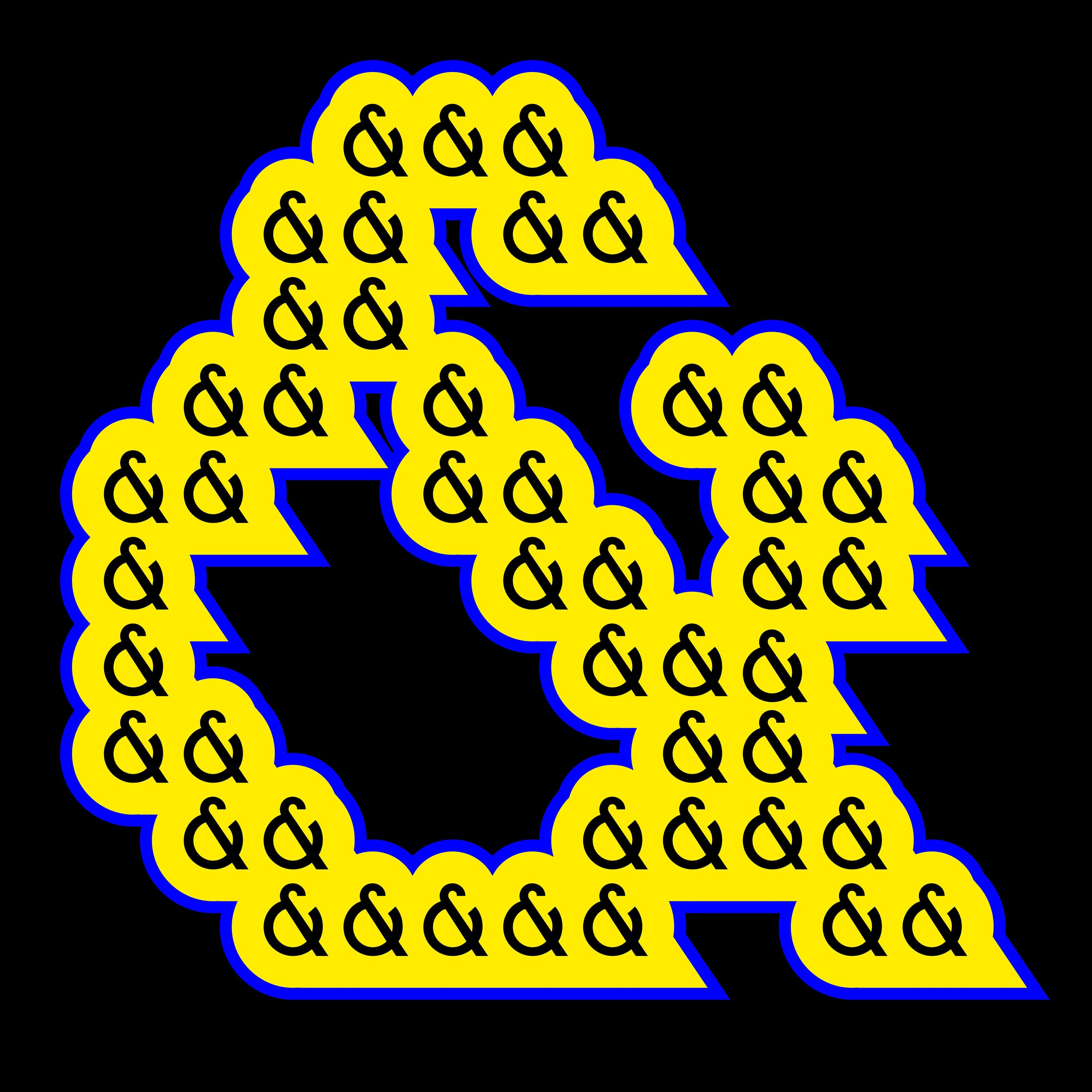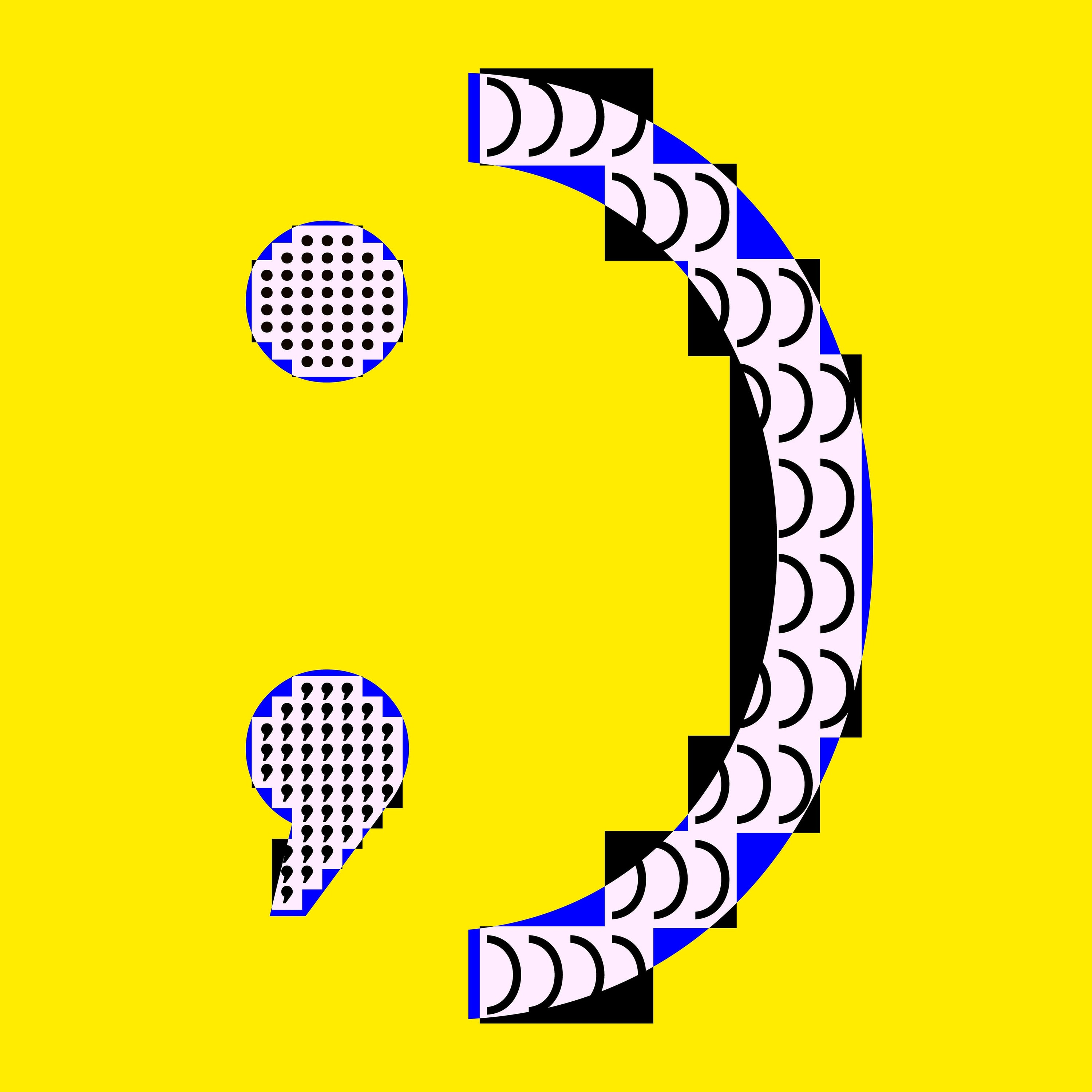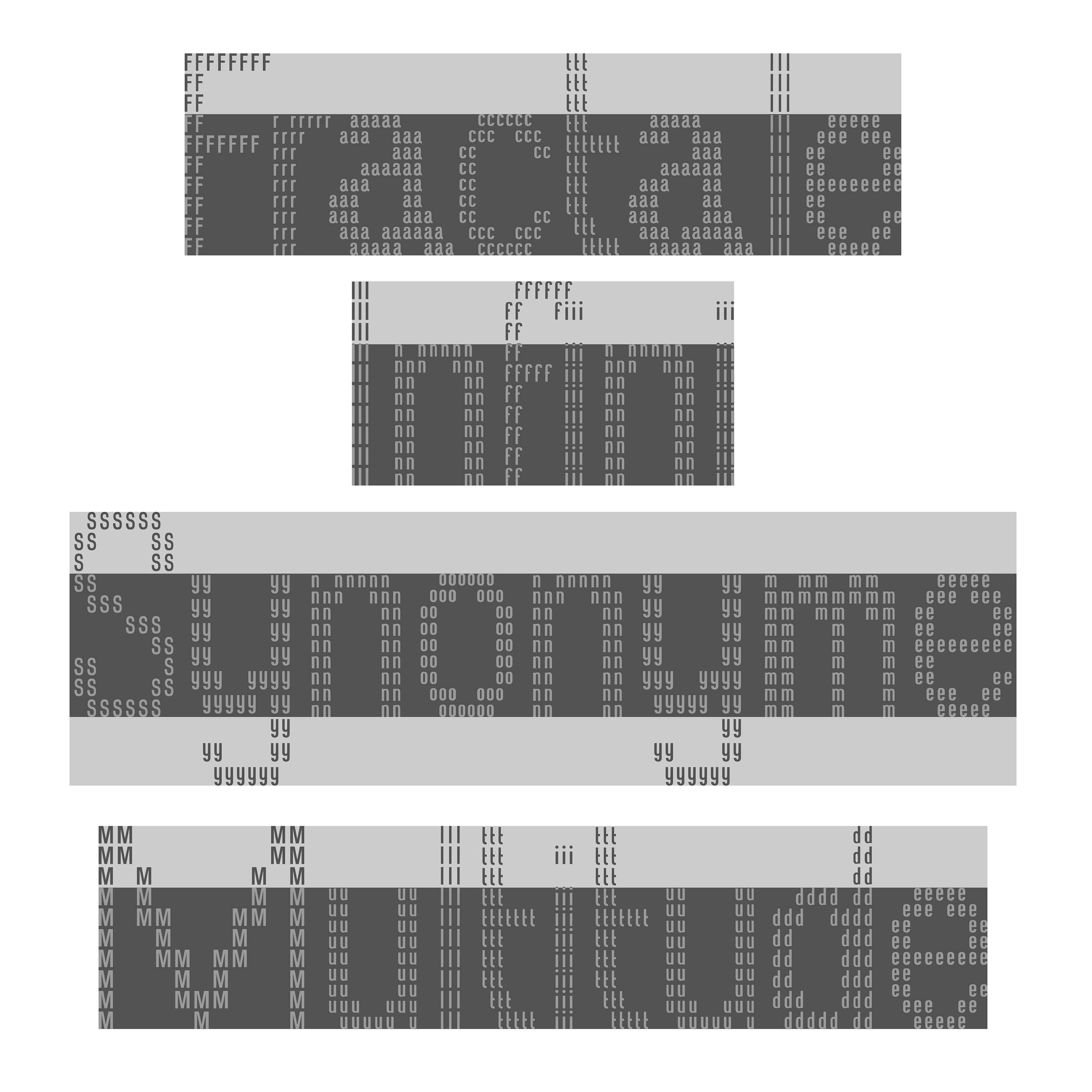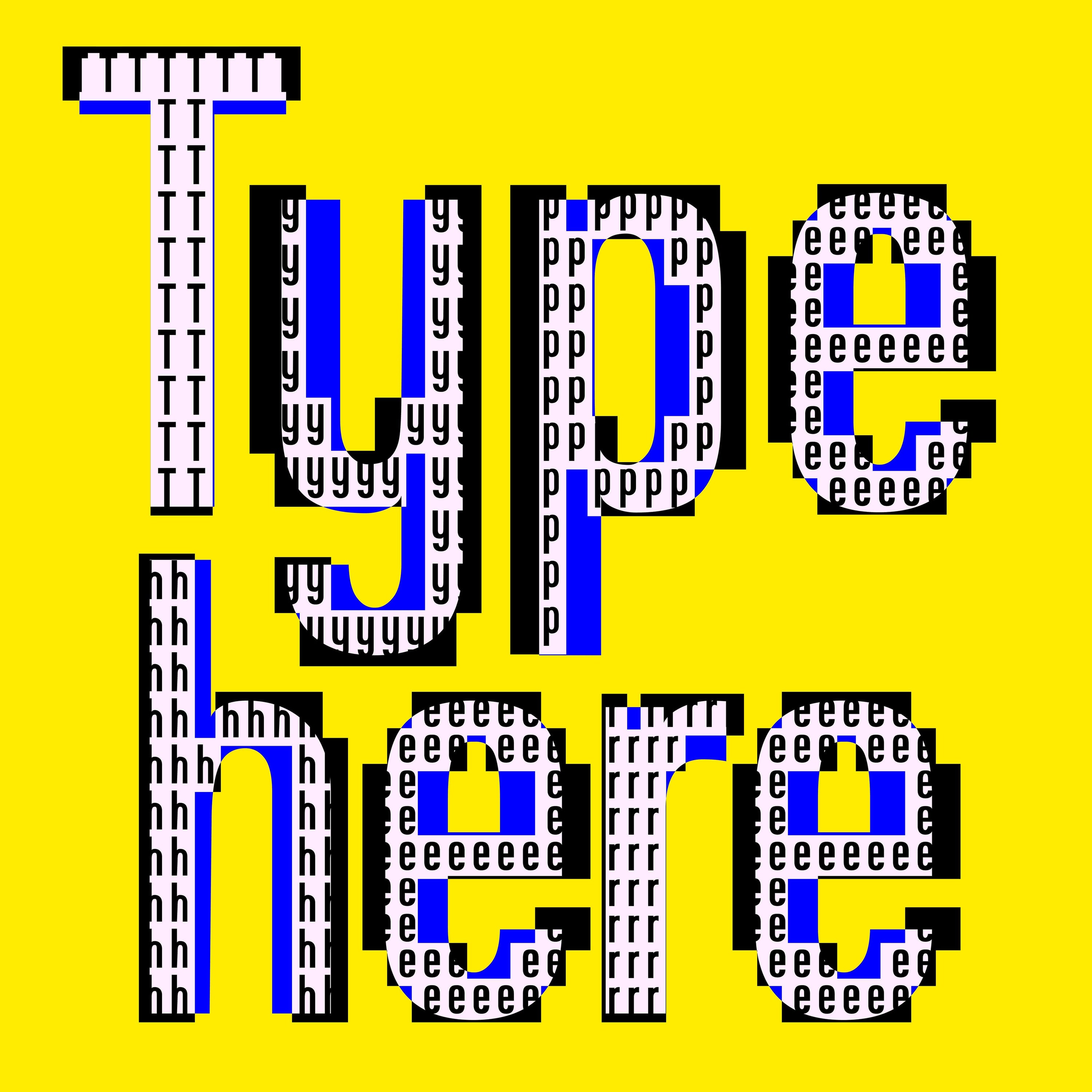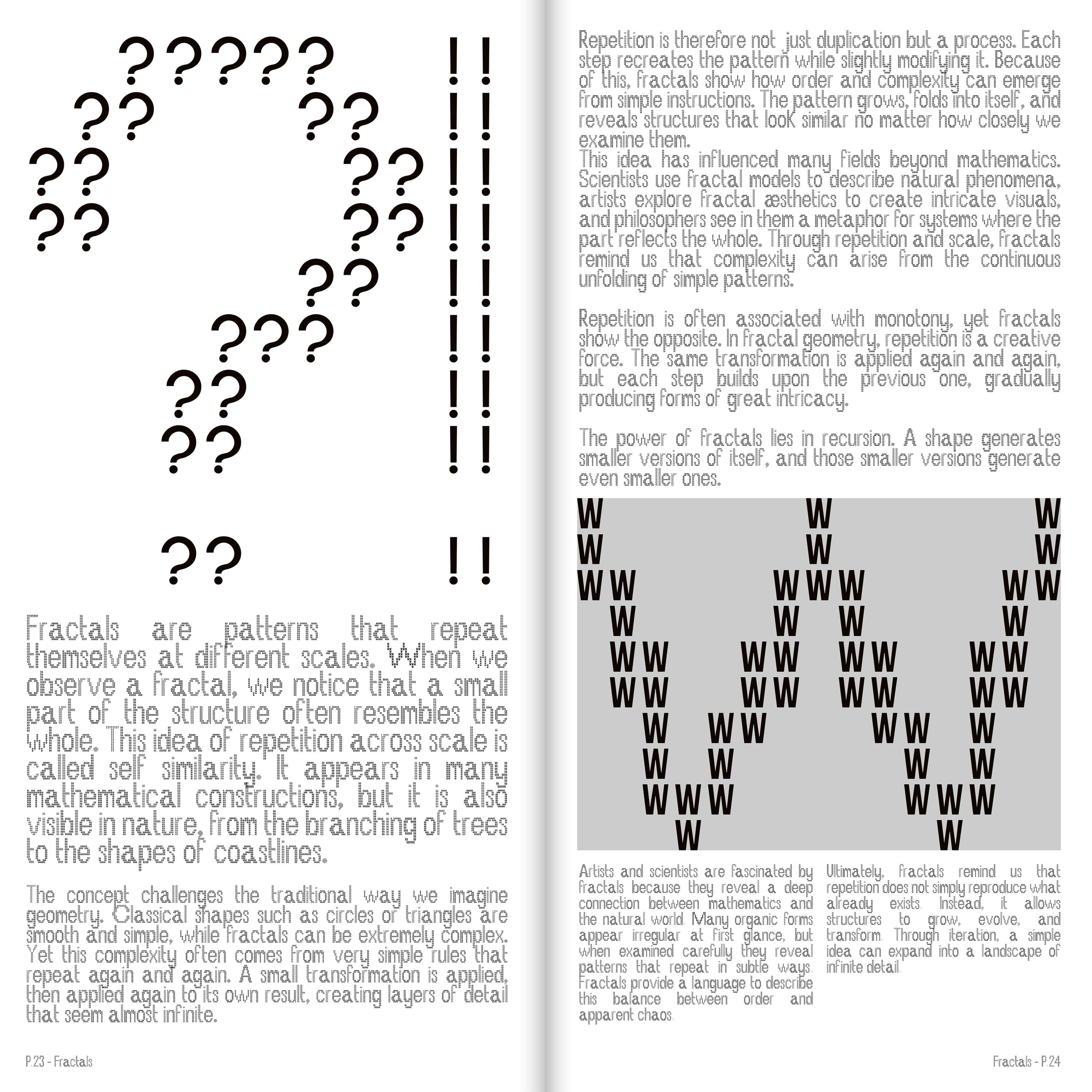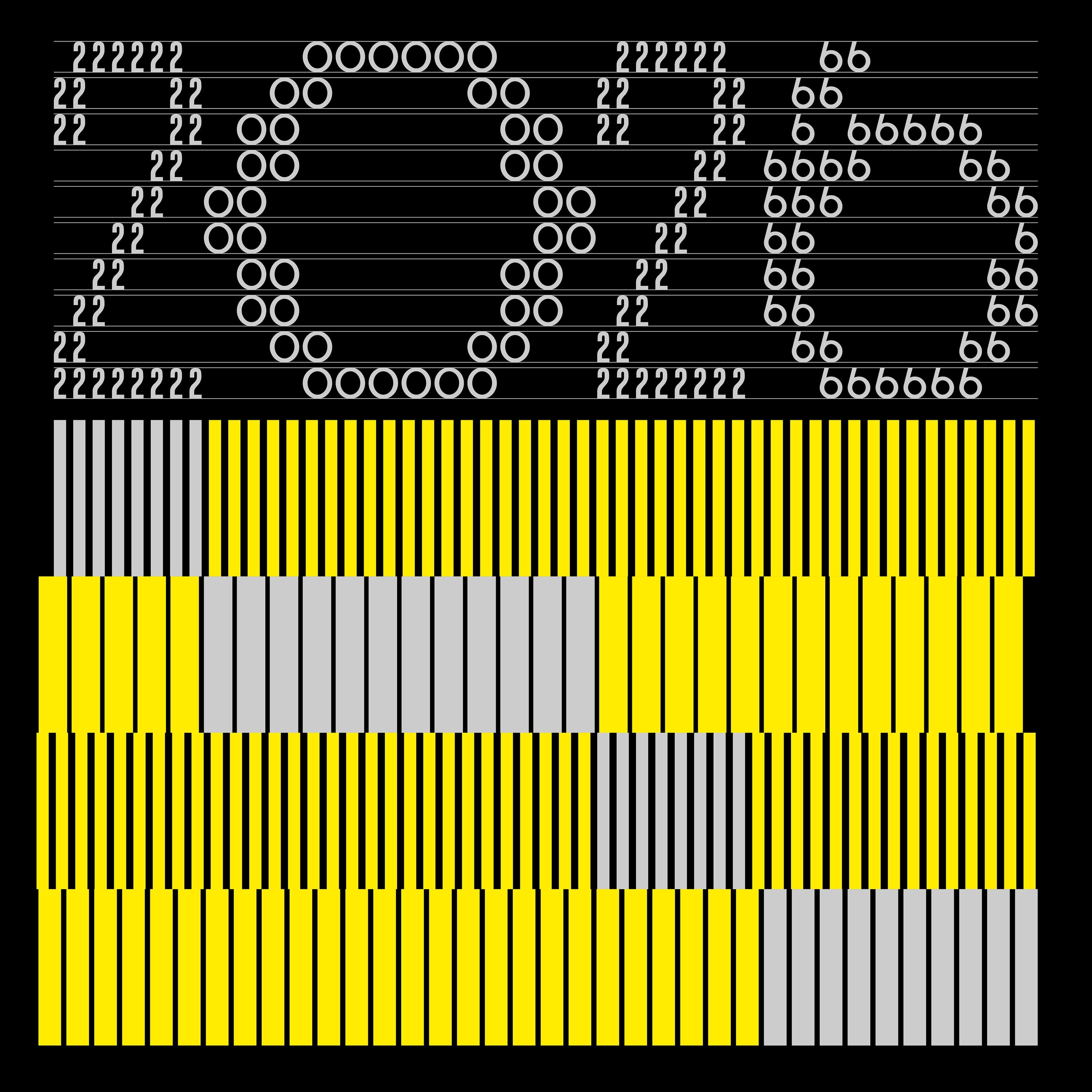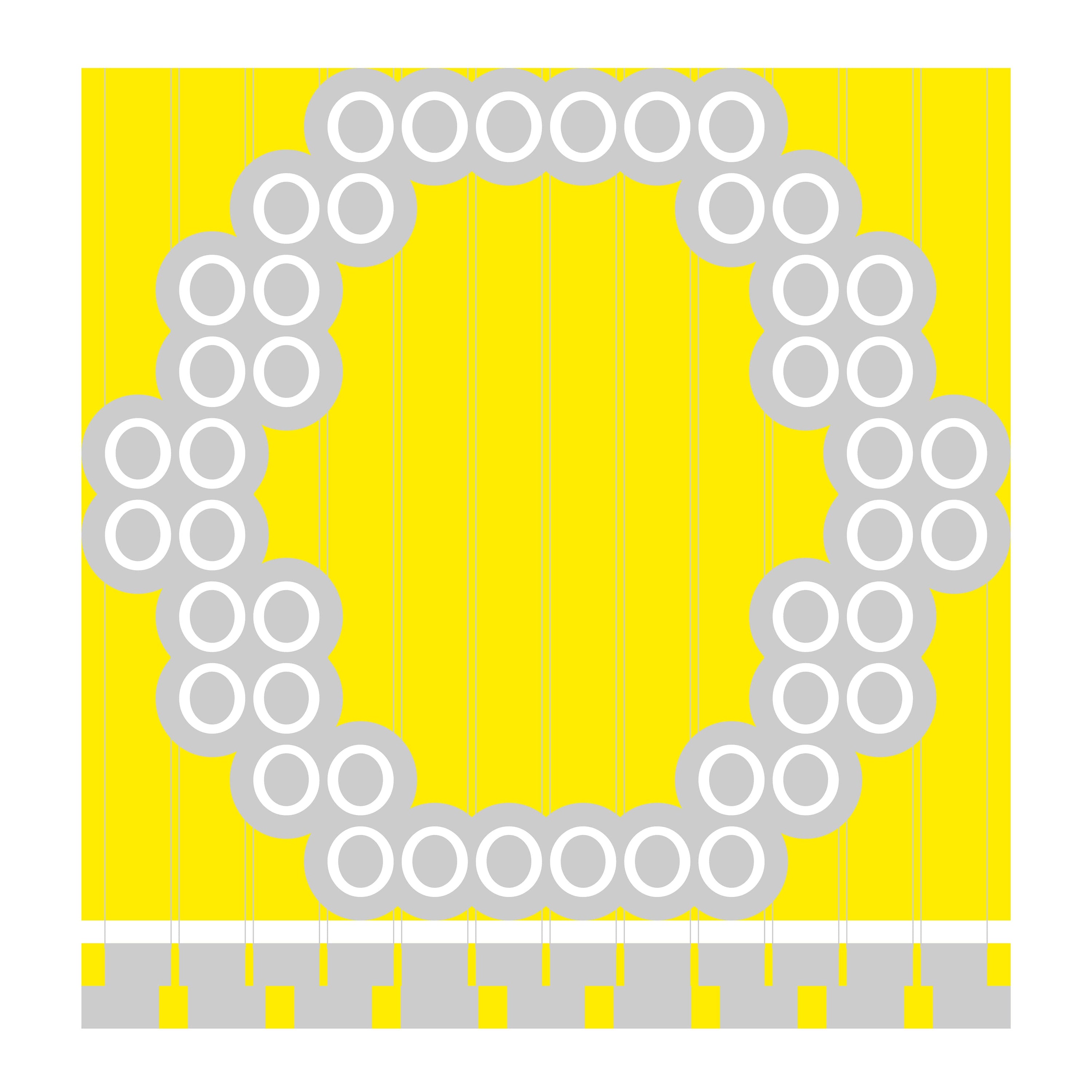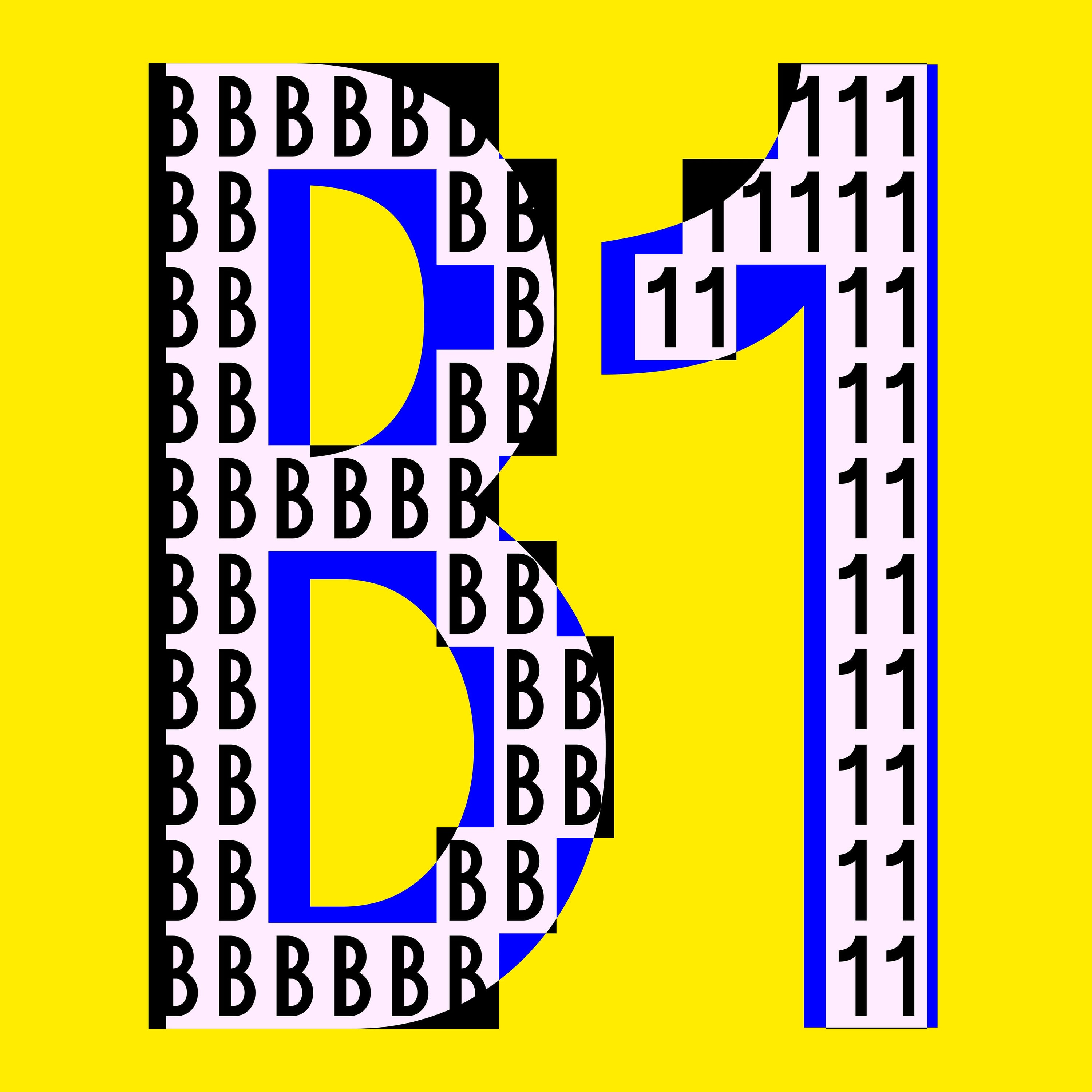
Abyme Typeface
Abyme is based on the "mise en abyme" concept, a narrative or artistic technique in which a work contains a smaller version, reflection, or representation of itself, creating a self-referential structure. It often involves a story within a story, an image within an image, or any element that mirrors the overall work. This vibrant display typeface produces striking visuals that are ideal for graphic compositions and maximalist experimentation.